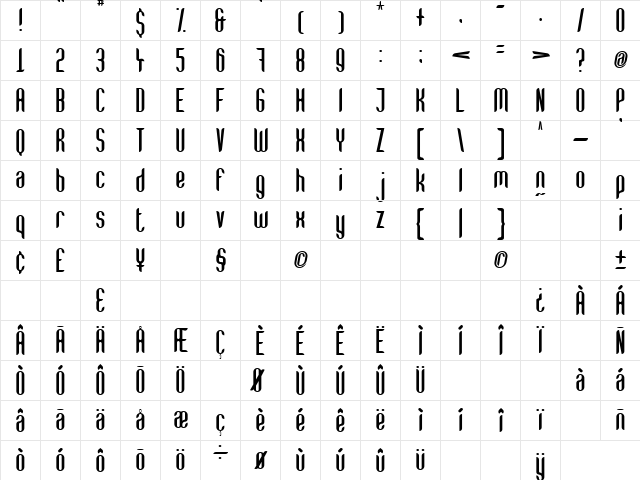
LoFi Regular Font Preview
LoFi Regular
LoFi Regular Font Details
Design Context for LoFi Typeface
LoFi is a composed and adaptable typeface that performs quietly and consistently across a wide range of design contexts.